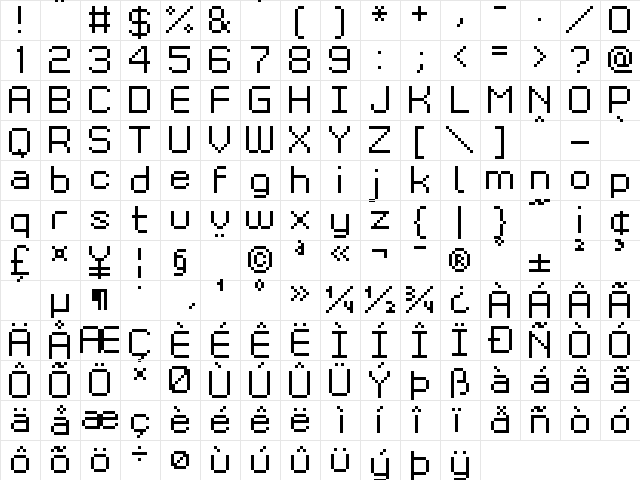
Grixel Kyrou 9 Regular Xtnd Regular
| Foundry | Nikos Giannakopoulos |
Design Context for Grixel Kyrou 9 Regular Xtnd Typeface
Grixel Kyrou 9 Regular Xtnd takes a measured approach to typography — its balanced proportions and neutral character make it a reliable workhorse for both digital and print work.